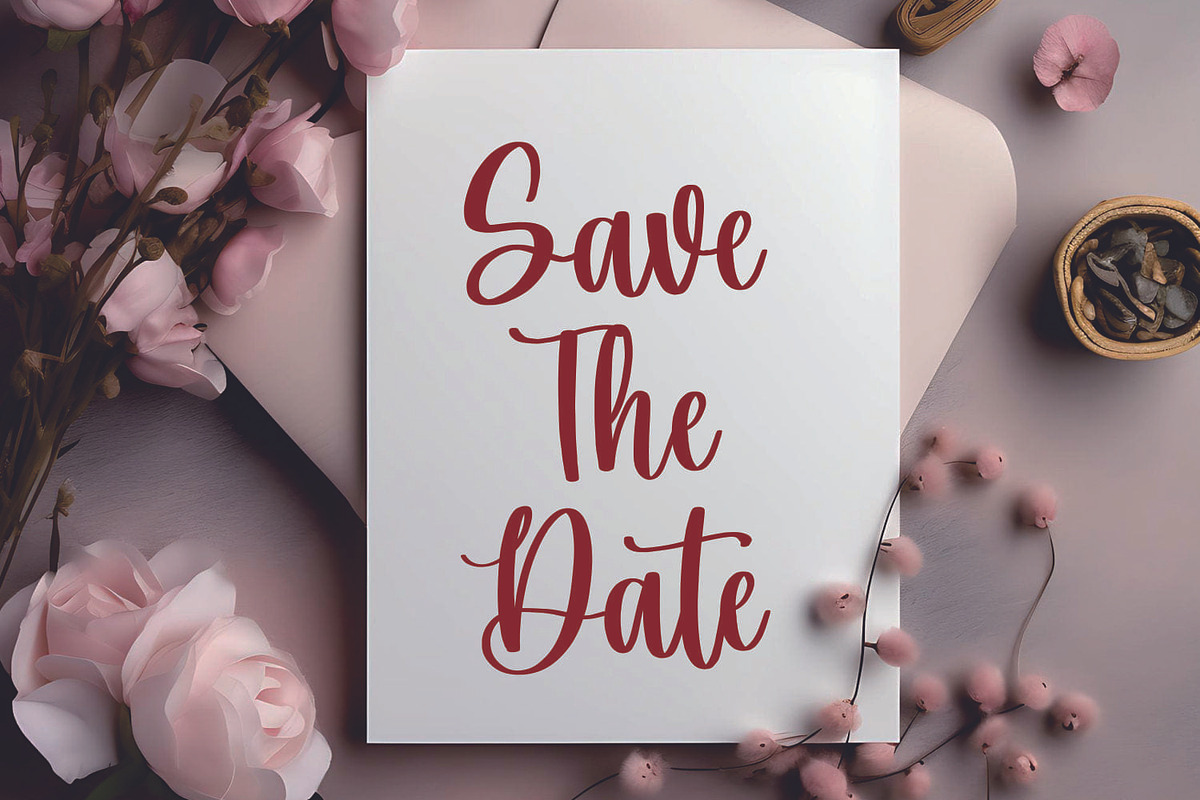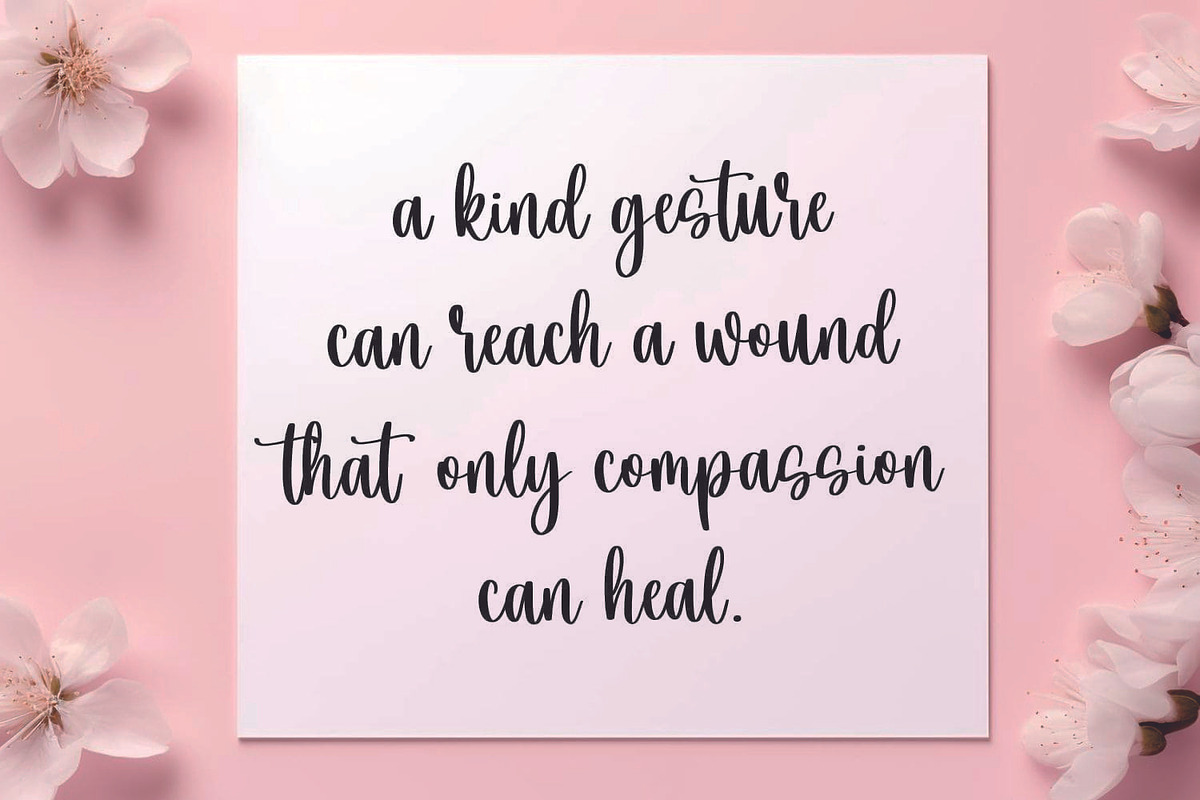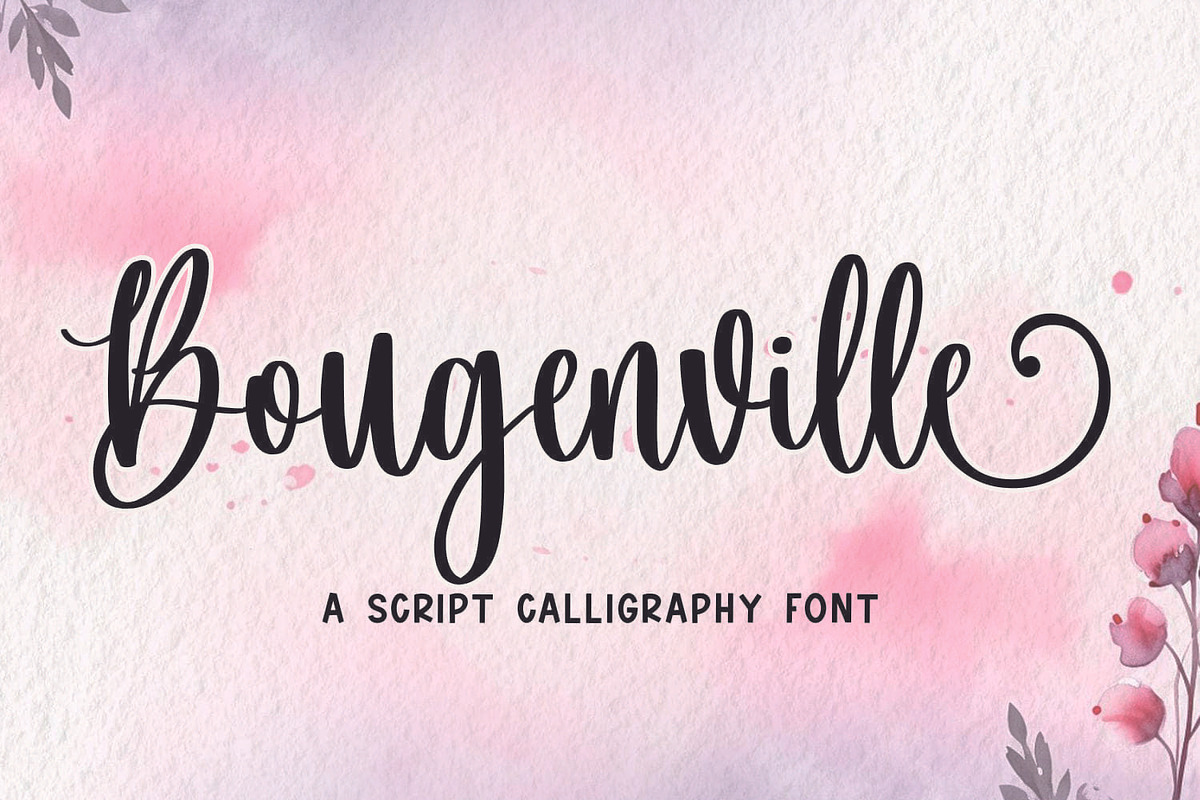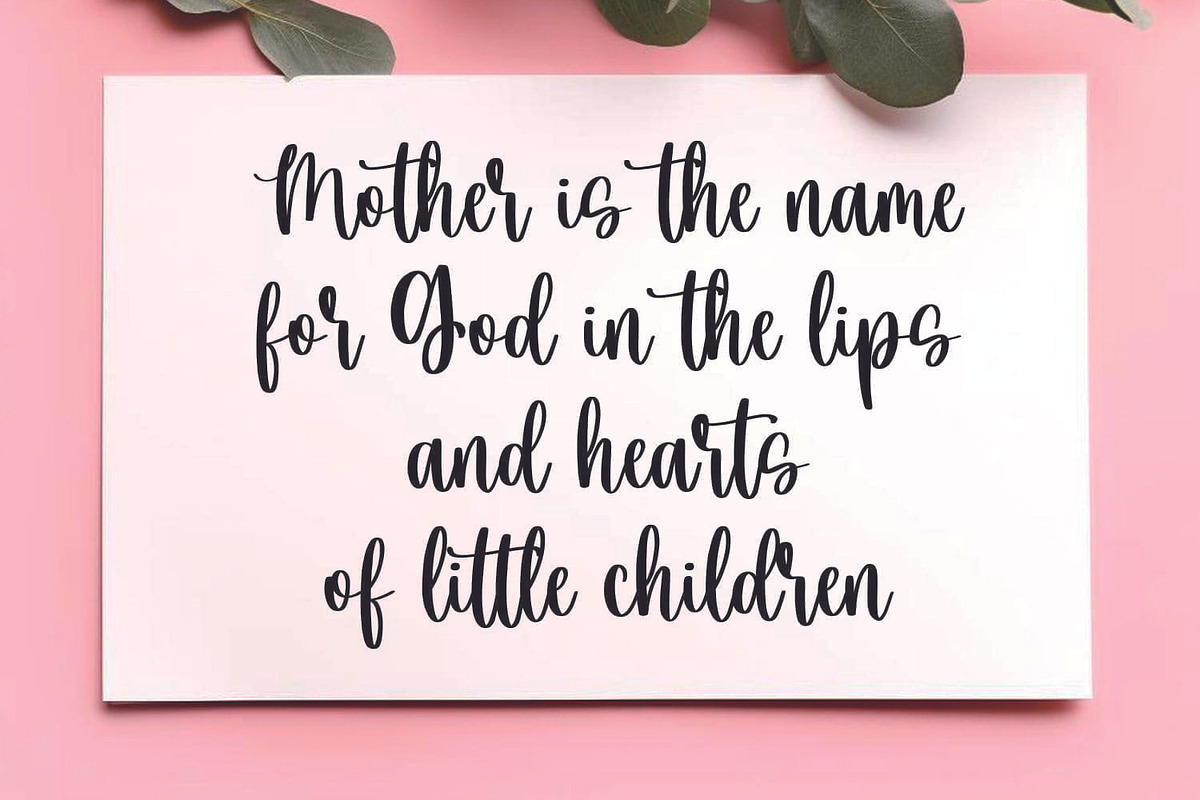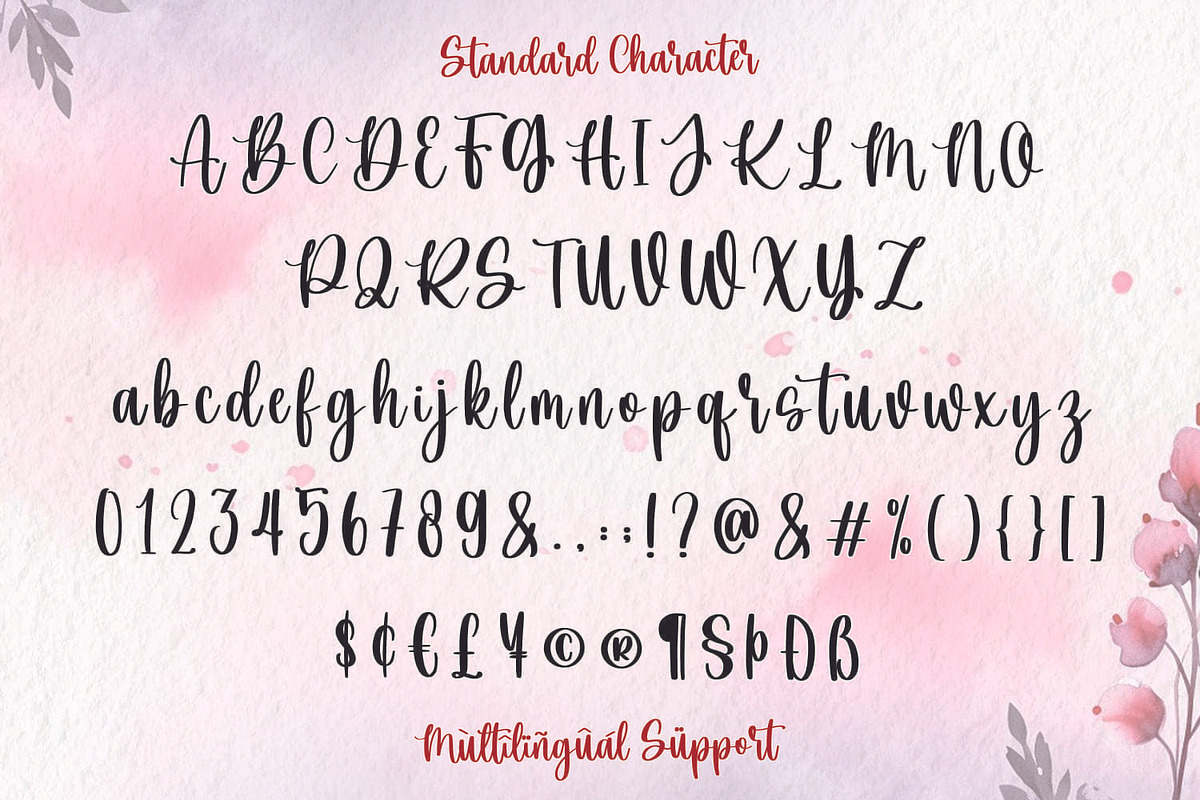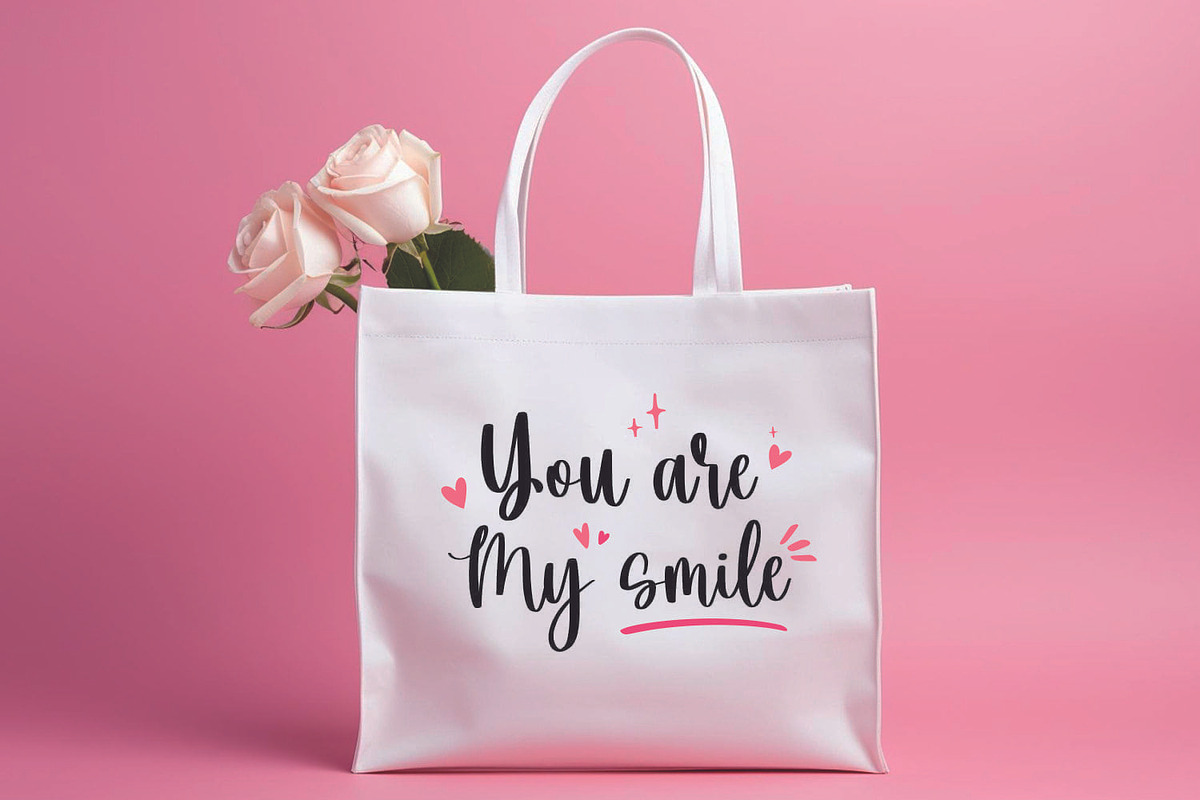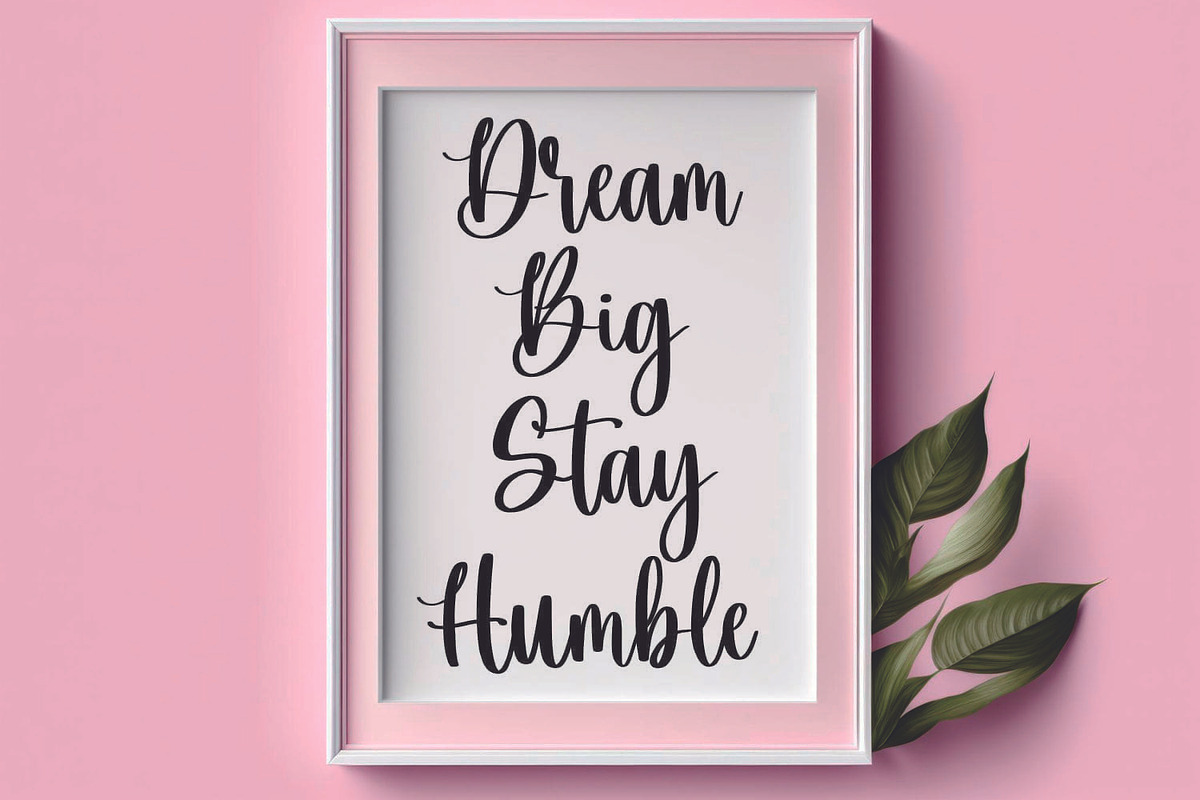
Bougenville - Wedding Font
Introducing Bougenville Font, a captivating script handwritten typeface designed to elevate your creative endeavors. Whether you're embroidering intricate patterns, crafting heartfelt Thanksgiving decorations, or adding a festive touch to your Christmas projects, Bougenville Font is your go-to choice. Its elegant strokes and authentic charm bring a unique flair to every piece, making it perfect for craft lettering enthusiasts seeking that extra touch of sophistication.
Unlock the potential of your crafts with Bougenville Font's versatile style. Its graceful curves and impeccable details make it an essential tool for expressing creativity and warmth in every project. Let Bougenville Font be your guiding hand as you embark on a journey of artistic exploration, transforming ordinary designs into extraordinary masterpieces.